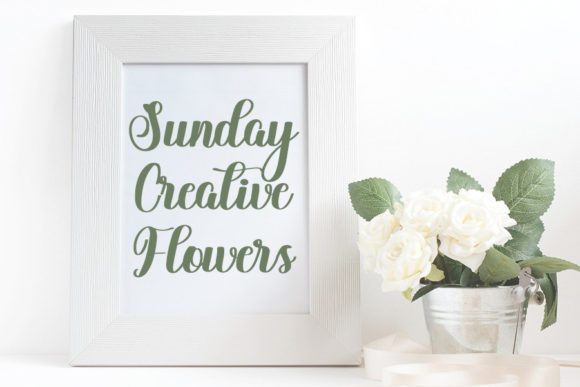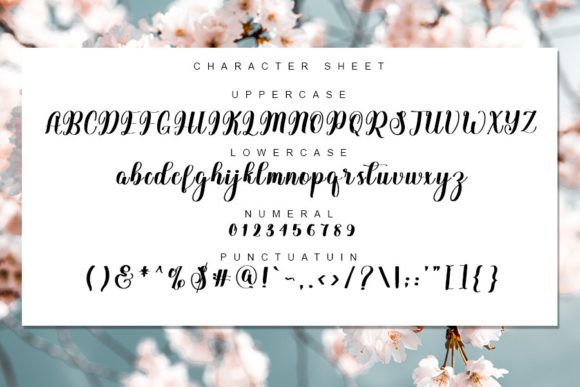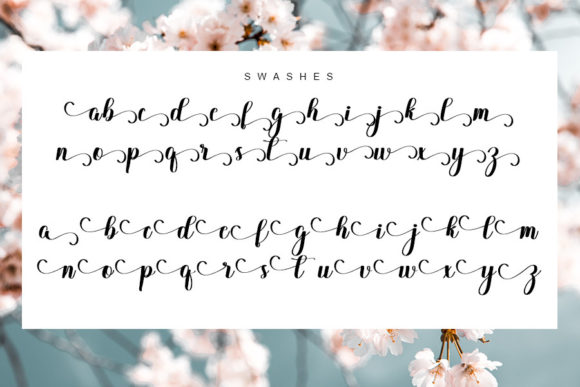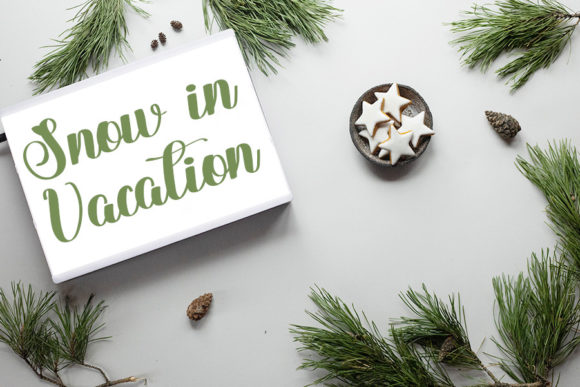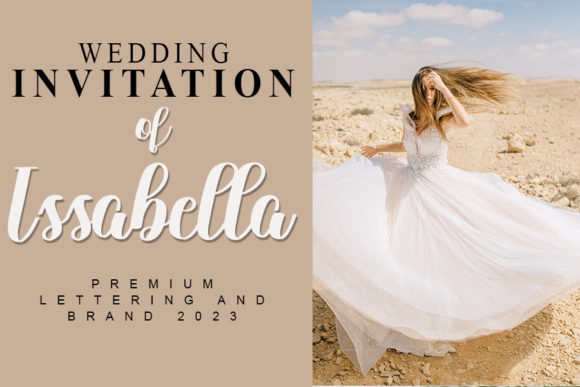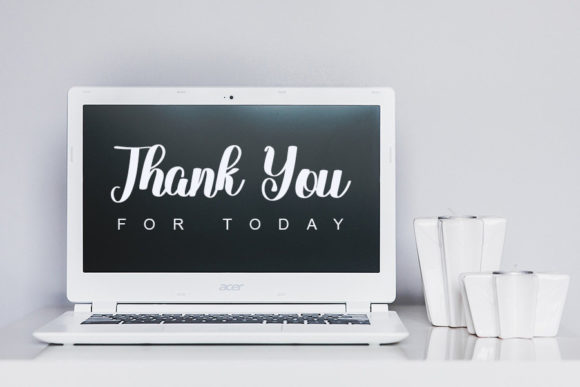
Introducing Delysha Script Font: Elevate Your Designs with Confidence and Nostalgia
Are you on the hunt for a font that exudes confidence, dynamism, and a touch of nostalgia? Look no further than Delysha Script Font. This gorgeous and bold handwritten font is designed to take your designs to the next level, adding a personal touch that’s sure to captivate your audience. In this article, we’ll dive into the world of Delysha Script, exploring its features, benefits, and uses, as well as provide tips on how to make the most of this incredible font.
The Confidence and Dynamism of Delysha Script
Delysha Script Font is a true showstopper, boasting a confident and dynamic style that’s perfect for designers and crafters looking to make a statement. Its bold, sweeping strokes and elegant lettering make it an ideal choice for a wide range of projects, from branding and advertising to packaging and editorial design. Whether you’re looking to create a bold logo, a eye-catching poster, or a stylish website, Delysha Script has got you covered.
A Nostalgic Touch
One of the standout features of Delysha Script Font is its ability to evoke a sense of nostalgia. Its classic, handwritten style is reminiscent of a bygone era, adding a touch of warmth and personality to your designs. This makes it perfect for projects that require a more personal, human touch, such as wedding invitations, greeting cards, and social media graphics.
Delysha Script Font is incredibly versatile, making it suitable for a wide range of design applications. Its flexibility is thanks to its clear, legible lettering and extensive character set, which includes uppercase and lowercase letters, numbers, and punctuation marks. This means you can use Delysha Script for everything from headings and titles to body text and captions.
Tips for Using Delysha Script Font
- Mix and match: Combine Delysha Script with other fonts to create a unique and eye-catching design. Try pairing it with a clean sans-serif font for a bold, modern look.
- Experiment with colors: Delysha Script looks great in a variety of colors, from bold brights to muted pastels. Don’t be afraid to get creative and try out different color combinations.
- Play with texture: Add an extra layer of depth to your design by incorporating texture and patterns into your Delysha Script typography.
Delysha Script Font is a dream come true for designers and crafters looking to add a personal touch to their work. Whether you’re a seasoned pro or just starting out, this font is easy to use and adaptable to a wide range of design styles. Plus, its gorgeous and bold handwritten style makes it perfect for creating:
- Packaging and labels
- Editorial design and magazines
In conclusion, Delysha Script Font is a must-have for any designer or crafter looking to elevate their designs with confidence, dynamism, and a touch of nostalgia. Its gorgeous and bold handwritten style, versatility, and ease of use make it the perfect addition to your font library. So why wait? Fall in love with Delysha Script and start creating spectacular designs today!